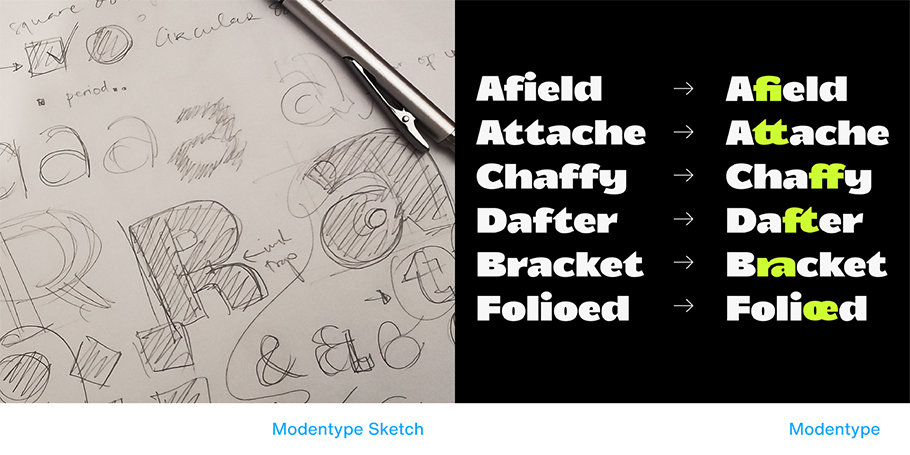
Creating fonts is a bit like being an architect drawing a house. Both require a sharp eye for detail, proportions, and visual harmony
Type and graphic designer Fitriyawan Runsell, founder of Runsell Studios, launched his Magelang City, Indonesia-based business in 2016, when he was just 24. Since then, he’s created 300+ fonts in multiple languages, ranging from Arabic to English. Recently, his foundry expanded by introducing Logofonts, a new division producing brand logos for small-to-mid-sized companies. In an email interview with Monotype, Runsell reflected on his business’ accomplishments and growth. Our conversation has been condensed for space and clarity.
MyFonts (MF): Not every foundry creates fonts in multiple languages; yours does. You began by designing in Arabic and now design in English. Can you talk about that change, and what spurred it?
Fitriyawan Runsell (FR): Runsell Studio works on all types of display fonts, including what’s actually an English-language font using Arabic style. We switched to designing in English, because I saw the international market needs English more. We started by creating one brand only for English and focused on the best way to create a logotype.
Supporting the brand is our Boldye font. It’s achieved a lot in sales, in a really short time, and it shows stability in all seasons, unlike the Arabic-style font, which has good sales only in certain seasons.
To further expand our market, we also made Logofonts accessible to all users. That concept is reflected in our tagline: “Easily create your own logo type,” meaning: any customer can create a logo from our fonts, without having design skills.
MF: What kind of challenges did you face in shifting your font language?
FR: Where there’s greater opportunity, there’s also greater competition. Many foundries design English-language fonts, making it harder for us to stand out. If we create Arabic fonts, we can focus on making the style more unique. But if we shift to English, we need to think more about how to make a font with lots of features that can fulfill user needs.
MF: What are the technical challenges of shifting not only from one language to another, but from one completely different alphabet — or set of design characters, with distinctive shapes — to another?
FR: Researching new letterforms is our biggest challenge, certainly. But we’re accustomed to making many types of display fonts, with several styles of migration/adaptation. Being in the initial launch phase of our brand, however, we’re still improving things to provide good-quality products for customers.
MF: How do you define good quality?
FR: Here, it’s a font with a good design concept (meaning: aesthetics, readability, and balanced functionality), a consistent letterform, and also proper spacing and kerning between letters and words. One of the hurdles in moving between languages and alphabets is that comprehensive testing is crucial to identify and address crossover issues. That can be a time-and-resource-intensive process.
MF: Can you tell me the story of your development as a typeface designer?
FR: Initially, I was a computer teacher. But I wanted to explore and switch my career, to grow. So I learned to make letters on my own, with some help from friends, books and Web sources. One year after launching Runsell Studio, I was joined there by my partner, Satia Hayu, who’s great with his lettering.
MF: What do you find most satisfying about developing your business?
FR: There will always be practical tasks involved, like performing typography studies, updating software, analyzing the market, staying up-to-date with trends, following design blogs and webinars in the field, and discussing font business to foster growth.
But creating new character forms or concepts is the most enjoyable. Lately, we’ve been developing a special monster font. Following’s a sample. We’re very proud of the results.
MF: What inspires you as a creator?
FR: I have two sources of inspiration: finding product solutions to customer problems, as well as making balanced works. Creating fonts is a bit like being an architect drawing a house. Both require a sharp eye for detail, proportions, and visual harmony in designs overall.
MF: What are some behind-the-scenes challenges that you didn’t anticipate on launching a creative business?
FR: Technology is developing very fast. Once, everything was done manually. Now, much of it is being replaced with amazing application updates and even AI (Artificial Intelligence). AI can speed up font creation by using machine learning algorithms to analyze and understand existing fonts, ultimately enabling the expedited generation of new fonts. But we’re confident that, for now, AI can’t replace all human capacities, like creativity, originality, intuition, storytelling, collaboration and communication. So, we’ll survive.